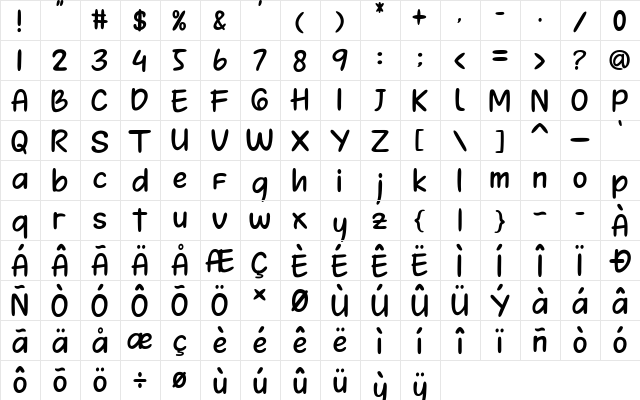
Sanshine Regular
Design Context for Sanshine Typeface
Sanshine is a composed and adaptable typeface that performs quietly and consistently across a wide range of design contexts.